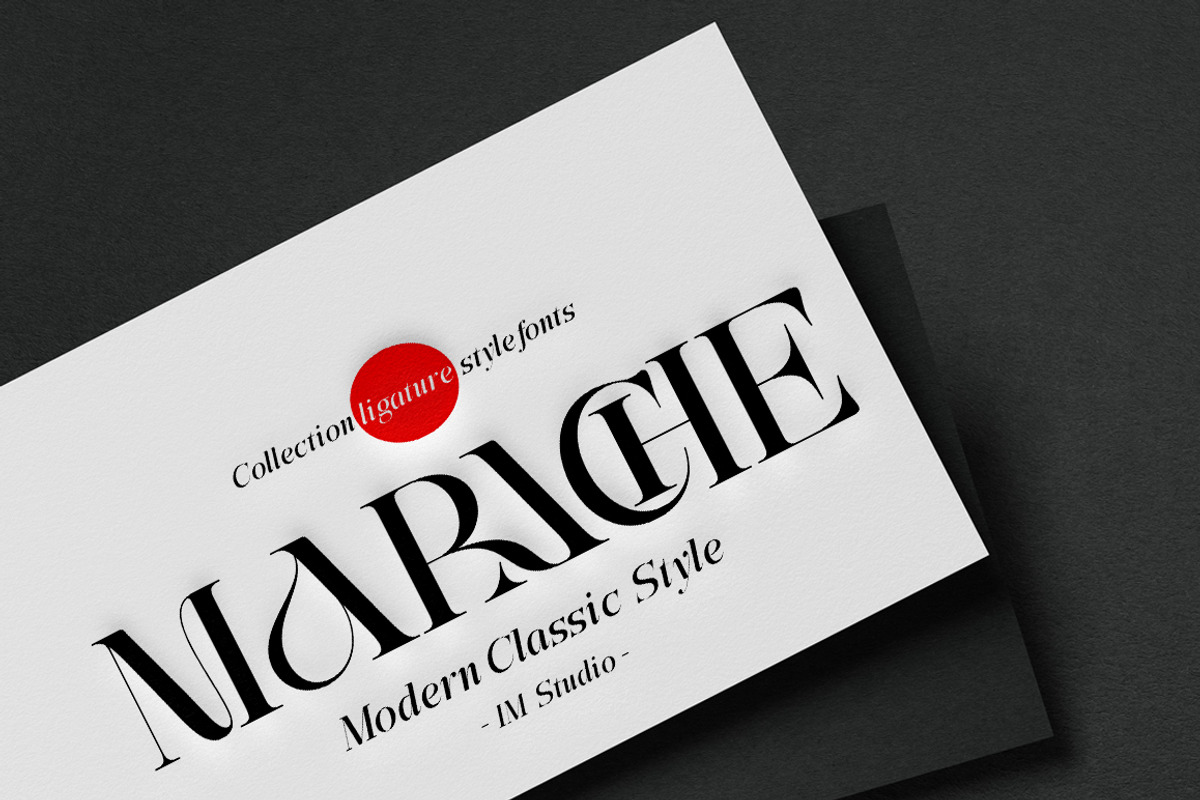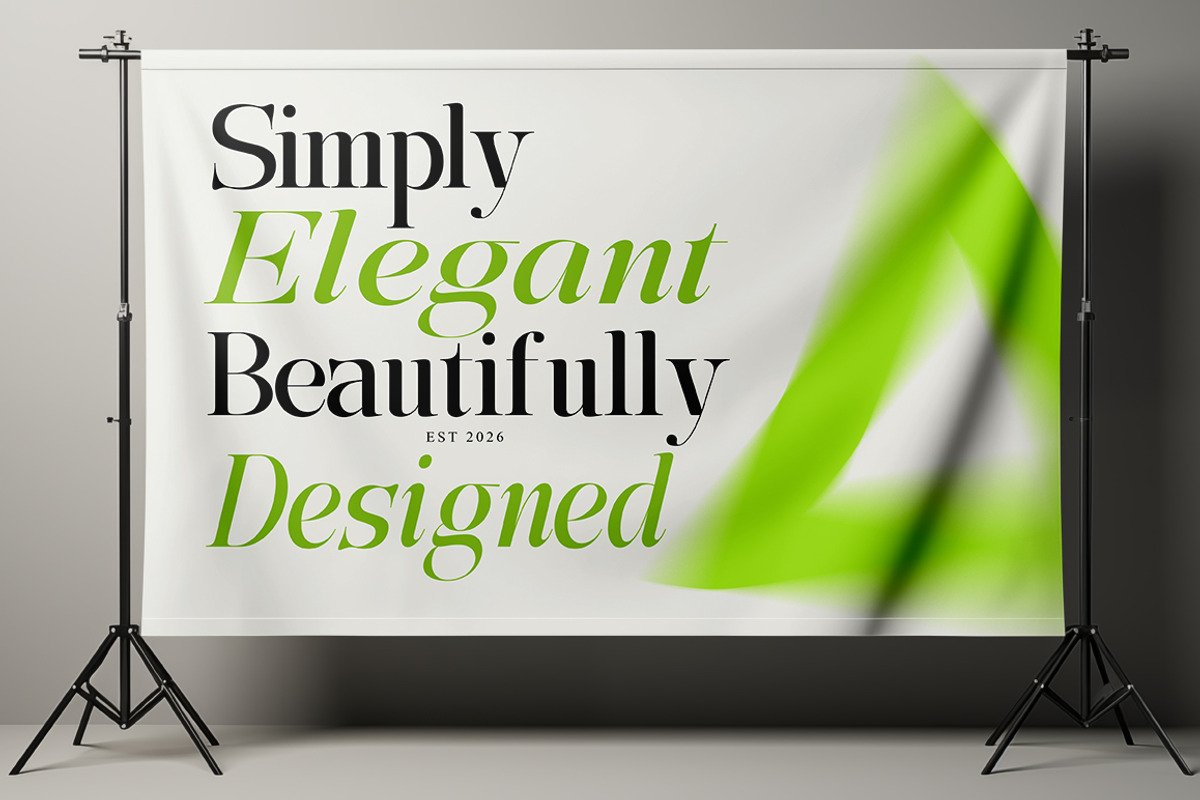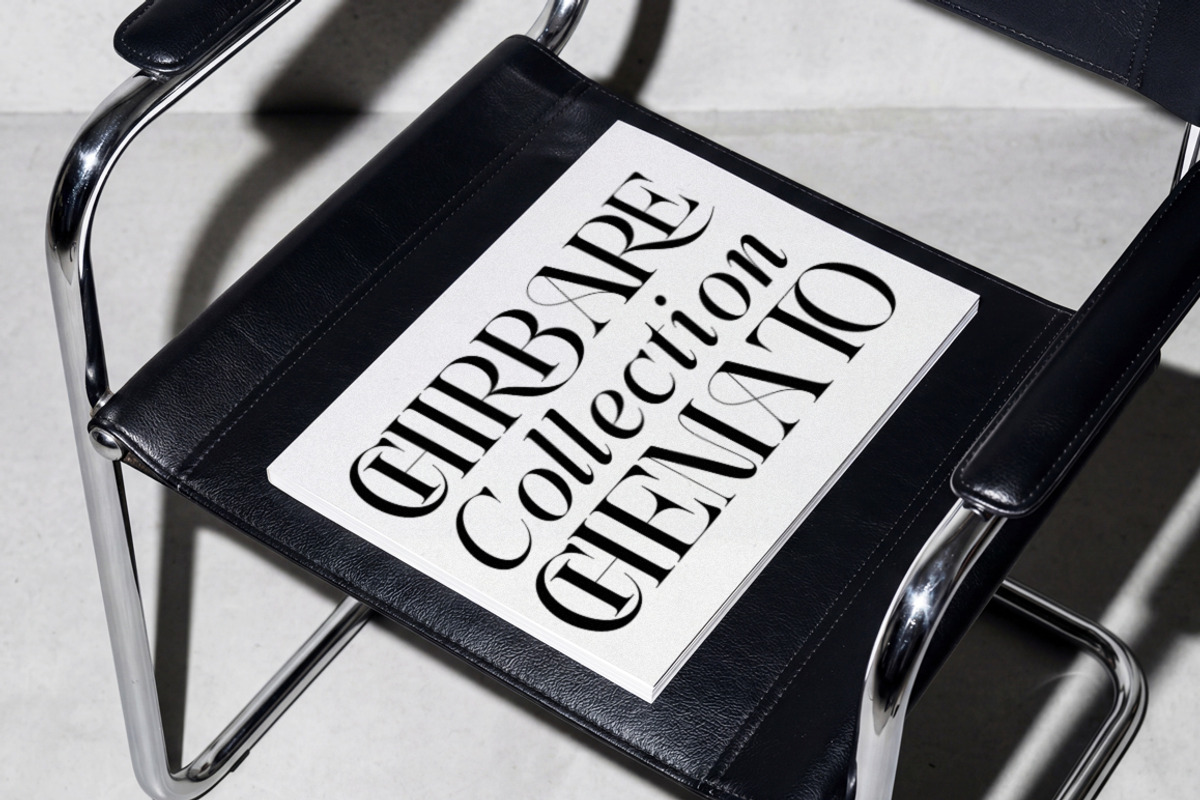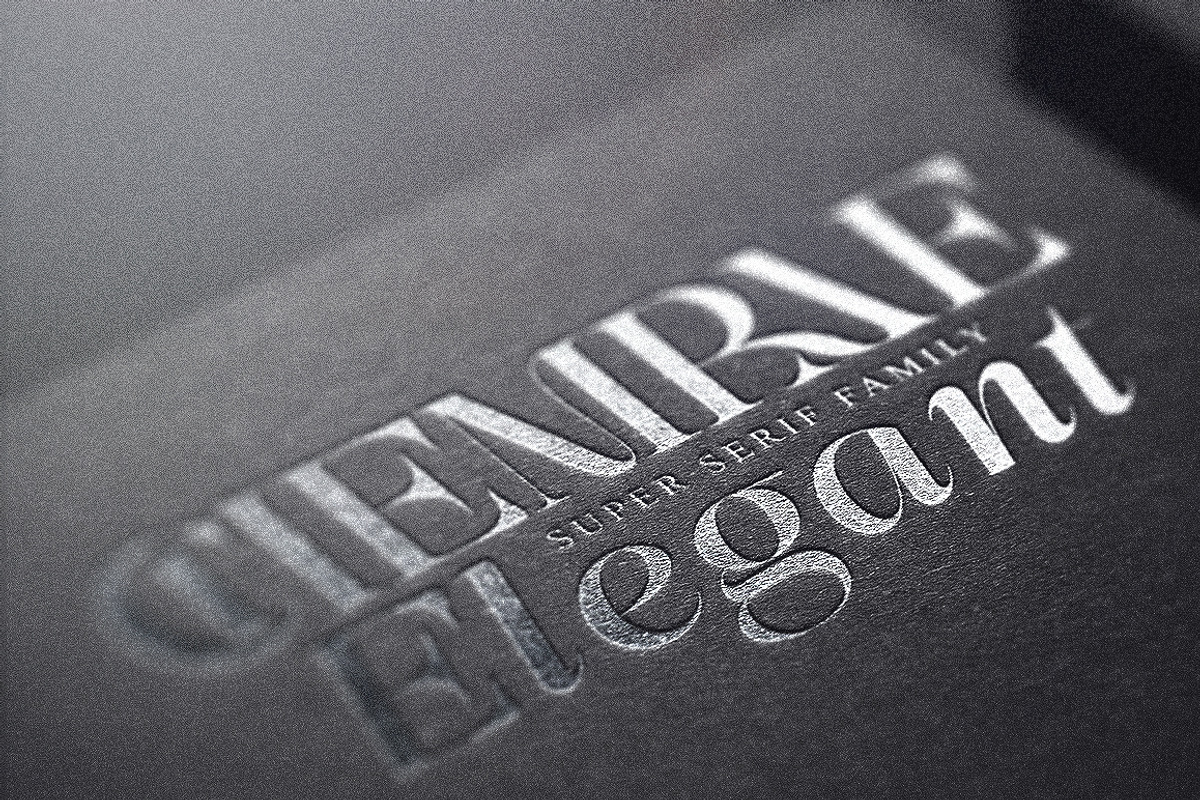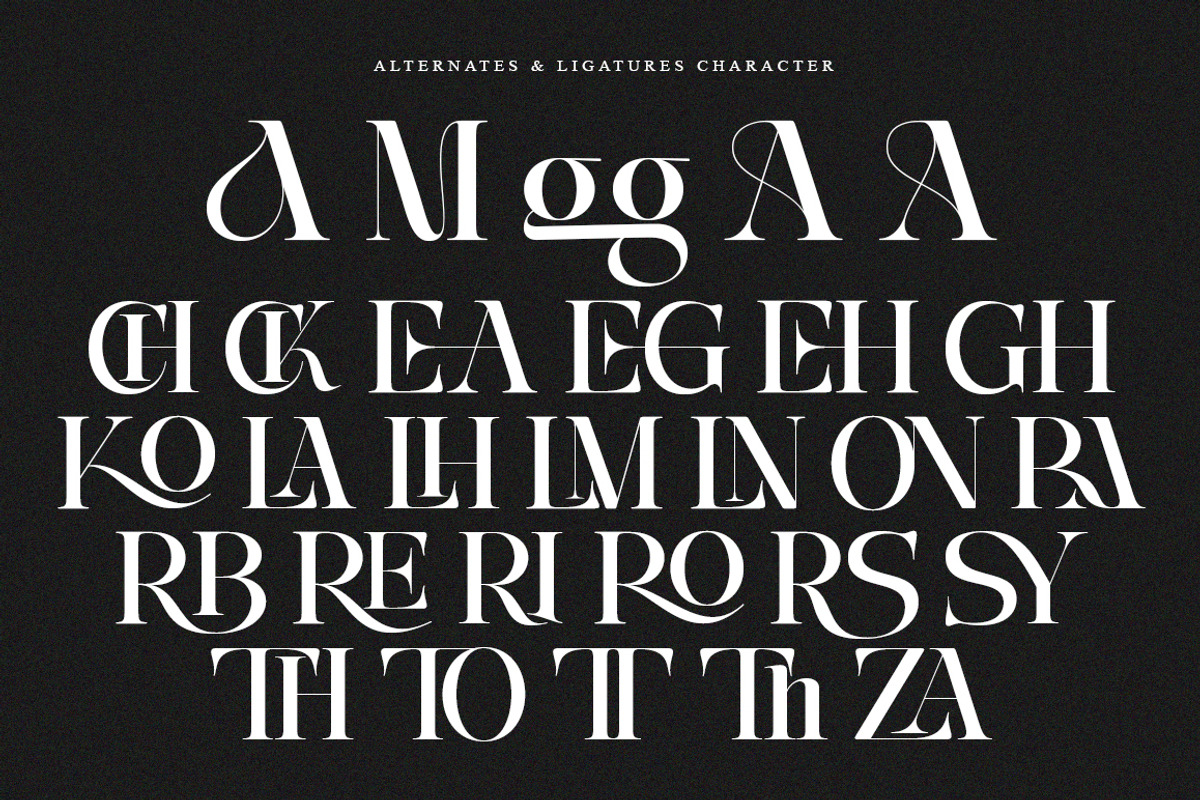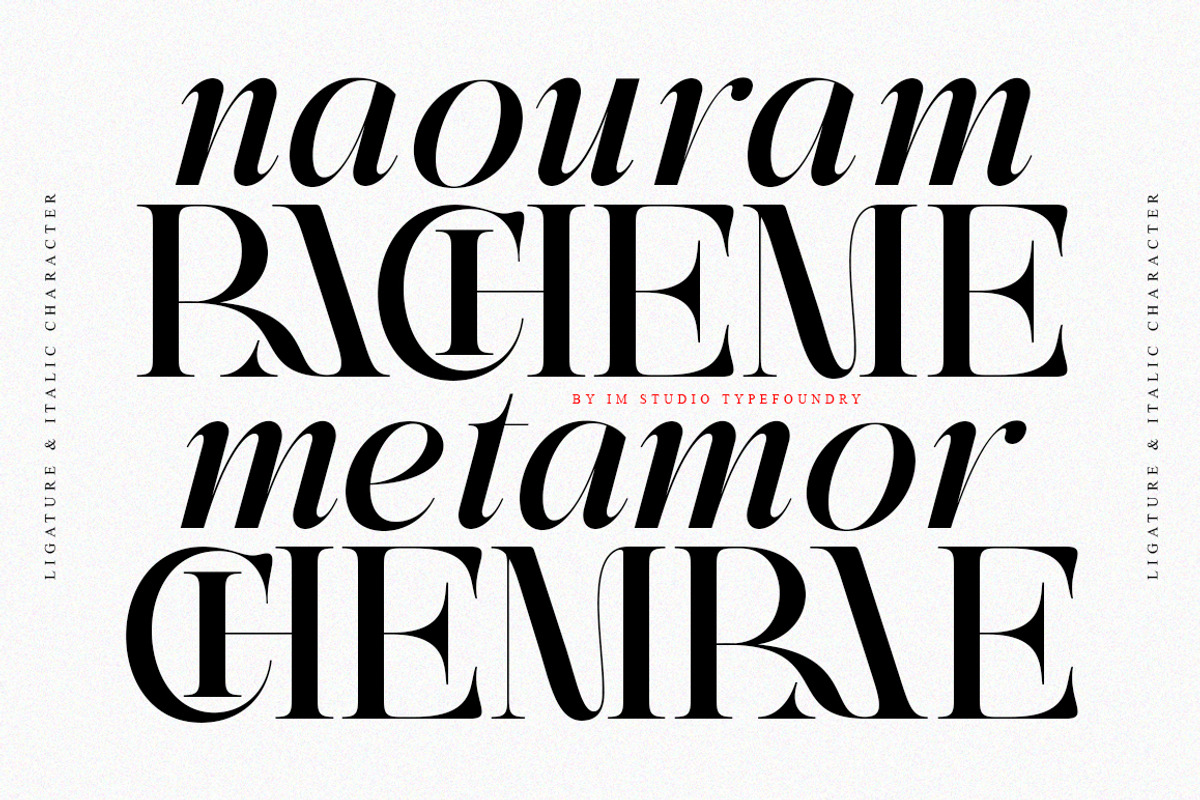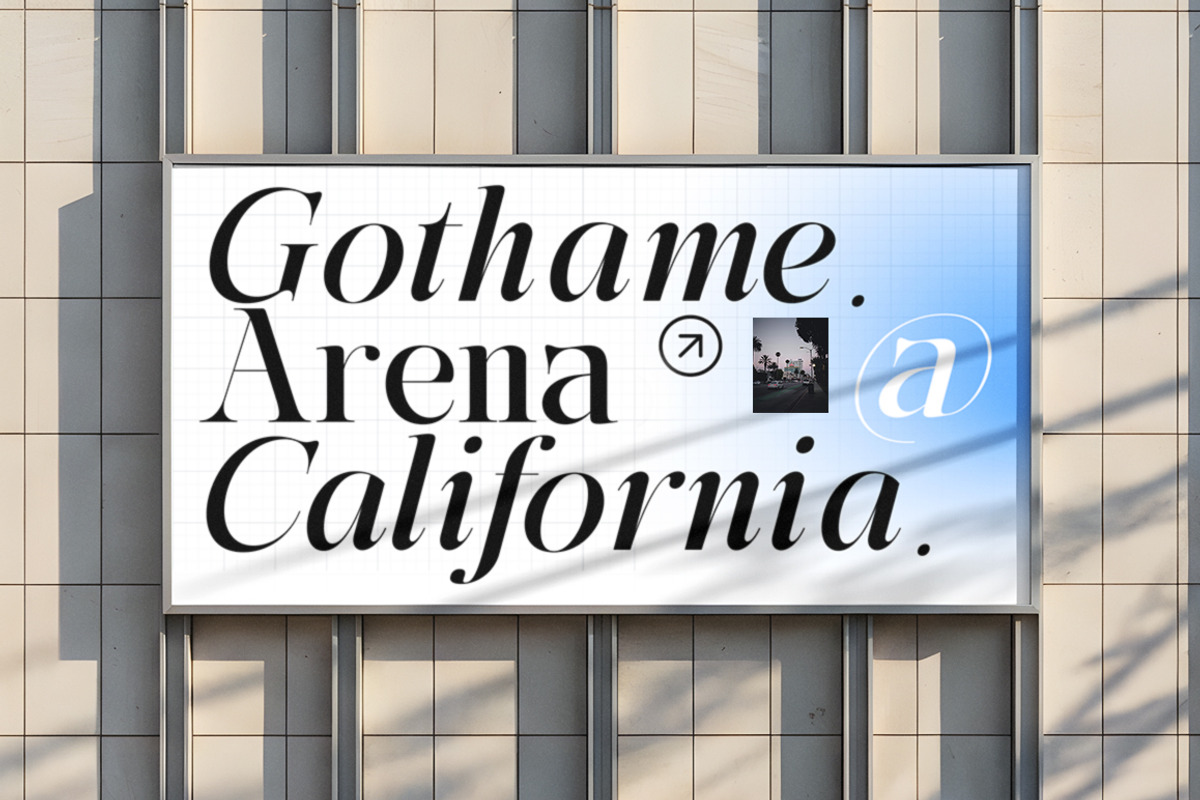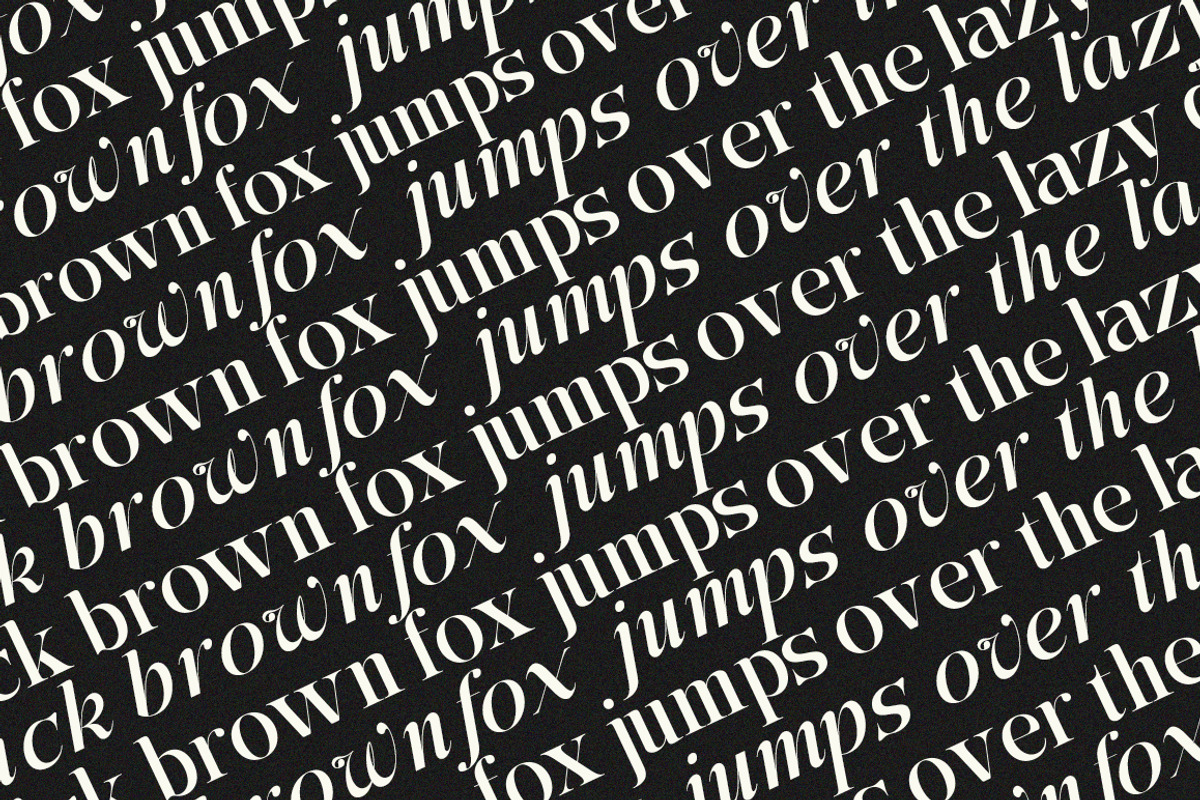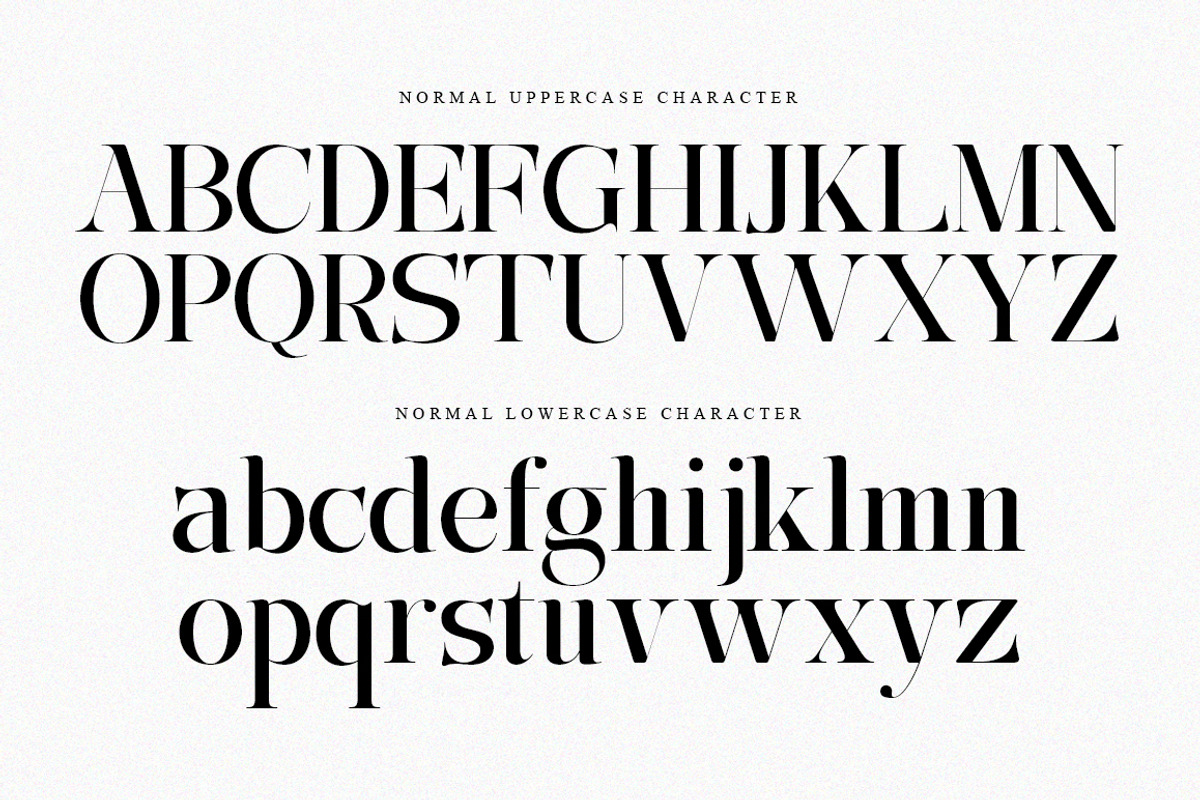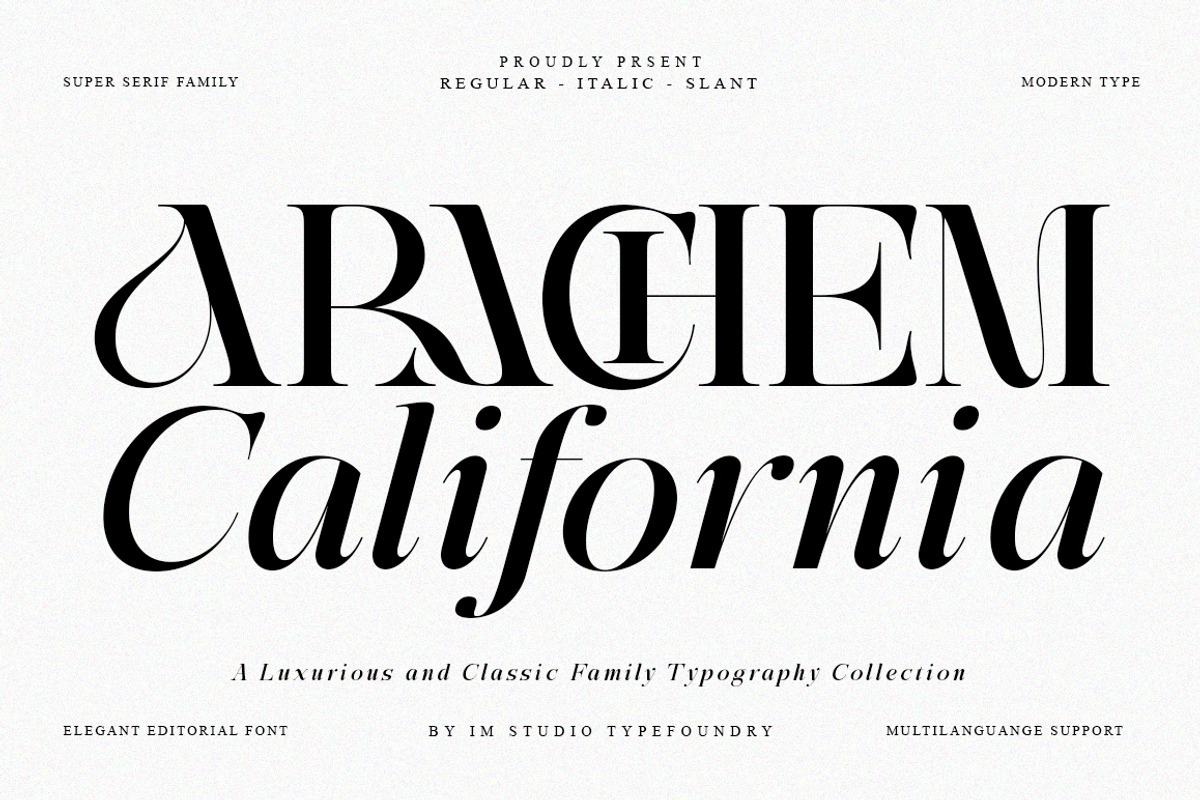
Arachem California | 27 Font Style
Arachem California – A Serif Typeface for Modern Aesthetics
Experience the charm of timeless elegance with Arachem California, a carefully crafted serif typeface that blends classic sophistication with contemporary style. Its high-contrast strokes, graceful curves, and refined proportions create a distinctive visual character that enhances a wide range of creative projects.
Whether you’re designing a sophisticated editorial layout, a memorable brand identity, an elegant website, or premium packaging, Arachem California brings versatility, sophistication, and a refined typographic presence to every design.
Immerse yourself in the world of Arachem California, where every character has been carefully designed to balance strength, elegance, and readability. From its sculpted serifs to its beautifully proportioned letterforms, this typeface captures the timeless appeal of classic typography while maintaining a fresh and modern aesthetic.
Its True Italics are thoughtfully designed rather than simply slanted versions, creating a natural flow that complements the upright styles while adding movement and visual interest to your typography.
Effortless Elegance Clean lines, refined serifs, and balanced proportions give Arachem California a timeless and sophisticated appearance.
Elegant Ligatures A curated selection of ligatures adds personality and creates distinctive letter combinations.
OpenType Features Enhance your typography with professional OpenType features, including ligatures and stylistic options.
Multilingual Support Supports over 90 languages, making Arachem California suitable for international branding and design projects.
True Italics Carefully drawn italic forms harmonize with the upright styles to create a cohesive and elegant typographic rhythm.
Editorial Design – Magazines, newspapers, books, articles, and sophisticated publications.
Branding & Logos – Create an elegant, memorable, and distinctive visual identity.
Web Design – Refined letterforms and high-contrast details for modern digital experiences.
Packaging & Print – Add a premium and luxurious touch to packaging, labels, posters, and printed materials.
Invitations & Stationery – Perfect for wedding invitations, greeting cards, business stationery, and elegant event materials.
Fashion & Luxury Design – Ideal for fashion campaigns, beauty brands, luxury products, and editorial layouts.
Arachem California combines timeless serif elegance with a versatile range of widths and styles, giving you greater creative freedom across branding, editorial, fashion, packaging, web design, and print.
Elevate your typography with Arachem California and explore a world of refined typographic possibilities.